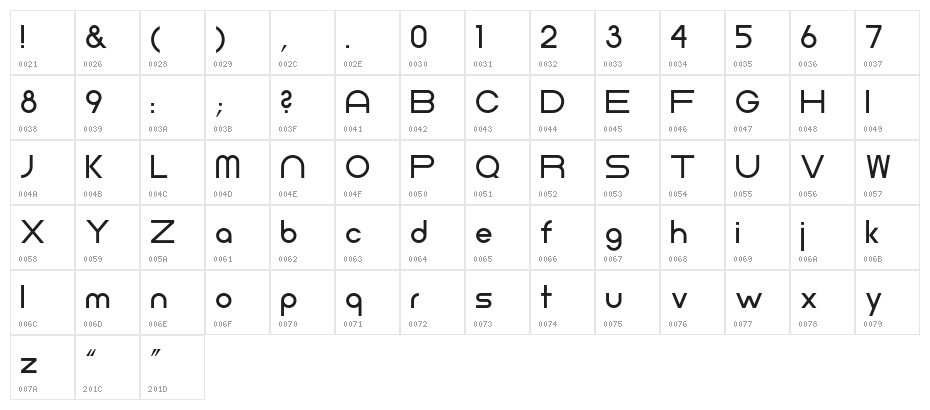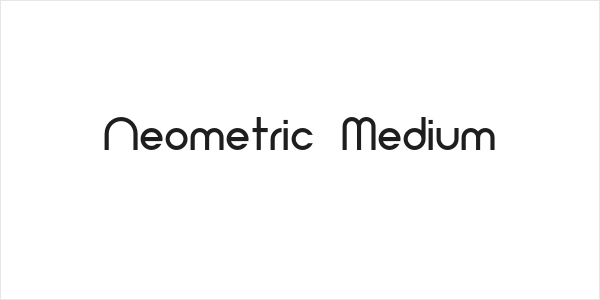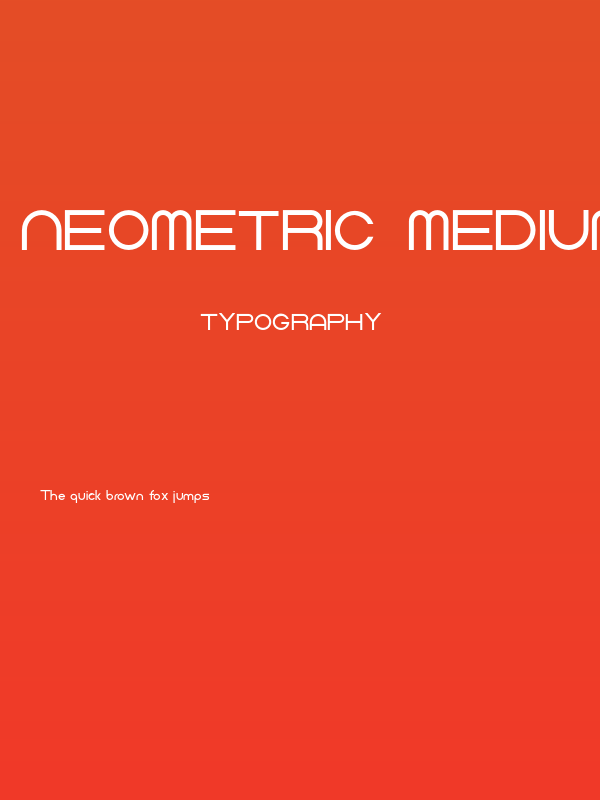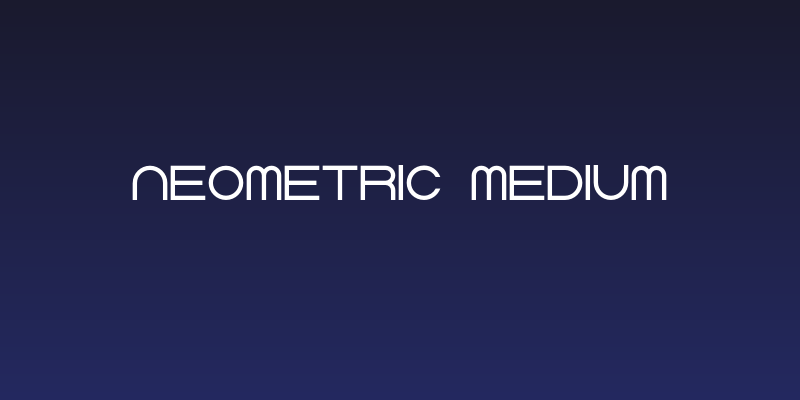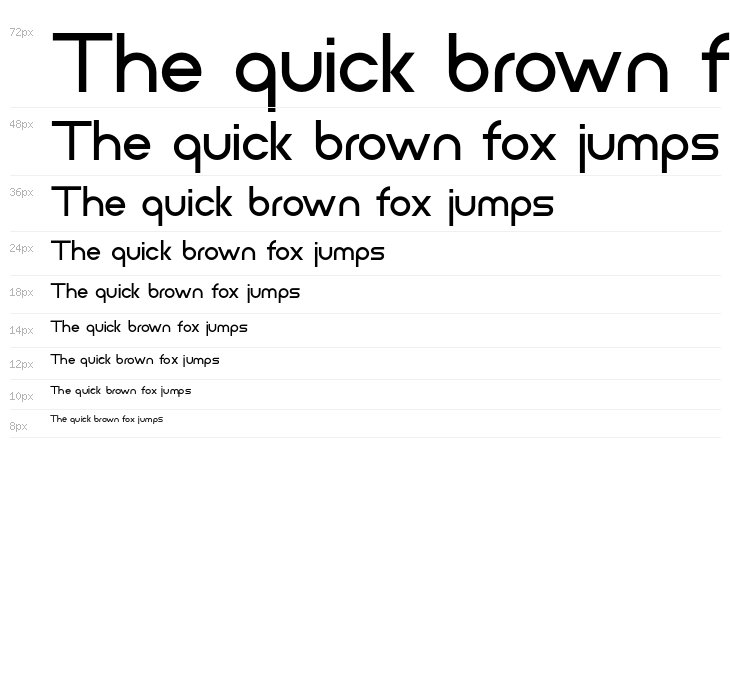
Neometric-Medium Font
Neometric-Medium Description
This font exhibits a modern and geometric design, characterized by clean lines and a balanced structure. The uppercase letters are uniform in height, with a consistent stroke width that gives a sleek and contemporary appearance. The lowercase letters maintain a similar geometric style, with rounded edges that add a touch of softness to the overall look. The numerals are clear and legible, matching the style of the alphabetic characters. Special characters are designed with the same attention to detail, ensuring consistency throughout the font. This typeface is ideal for projects that require a modern and professional aesthetic.
| Use Case | Headlines, Logos, Digital Interfaces |
| Proposed Projects | Ideal for branding, digital interfaces, and modern print materials. |